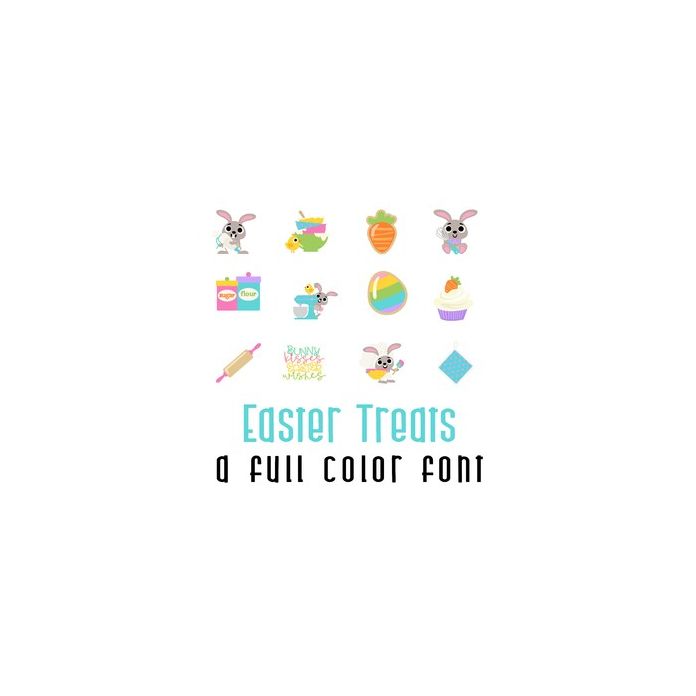
This adorable full-color doodlebat font 26 images of bunnies baking Easter Treats. Perfect for cards, crafts, gifts, decor, scrapbook pages, planner stickers, and more!